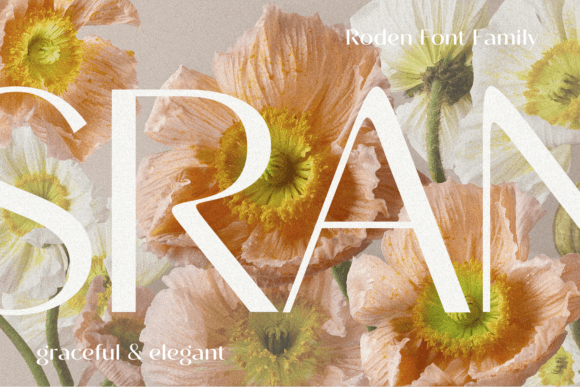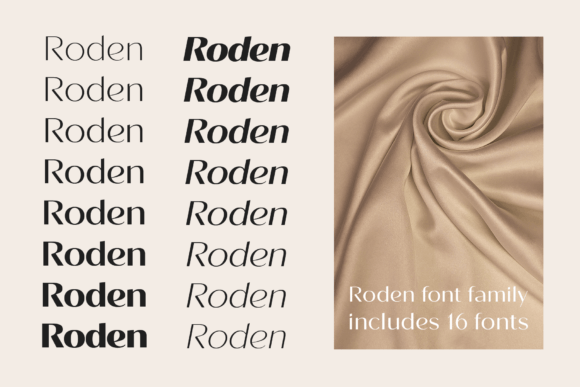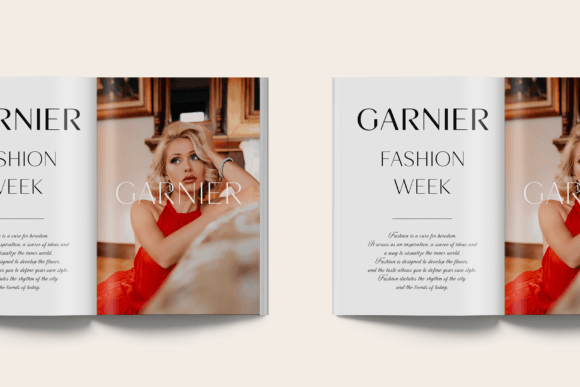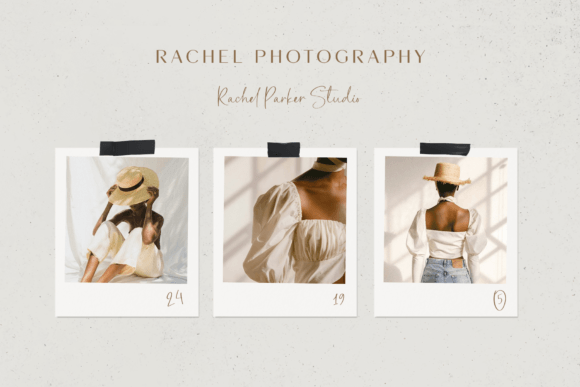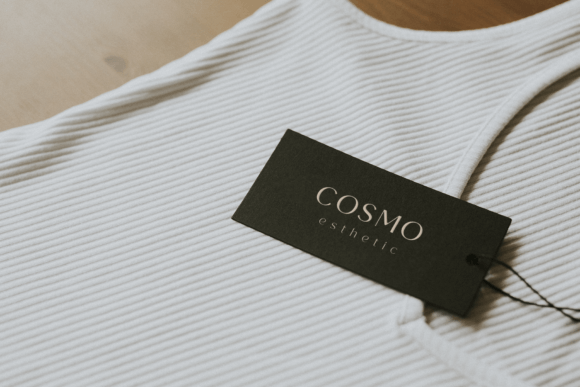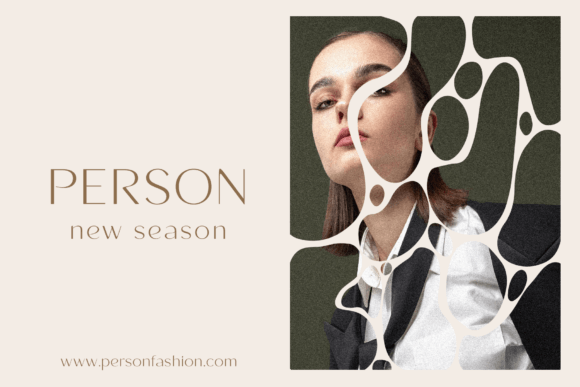
Introduction to Roden Font
Roden is an elegant and modern font family.
| 👤 Author | Pasha Larin |
It includes eight weights from Thin to Bold and italics to them This font is a multi-purpose font that is perfect for any project, it is contrasted, modern and easy to read.
Key Features of Roden Font